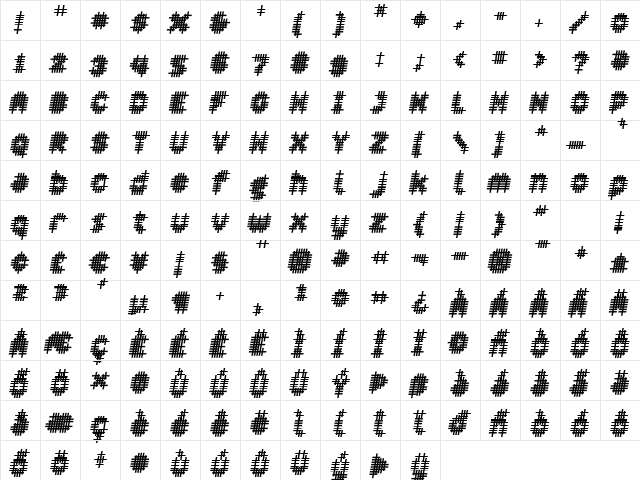
Overcross ExtraBoldOblique
Design Context for Overcross Typeface
Overcross is a composed and adaptable typeface that performs quietly and consistently across a wide range of design contexts. Its italic angle brings a sense of urgency and motion to the letterforms. The heavy weight commands attention and anchors typographic hierarchies.